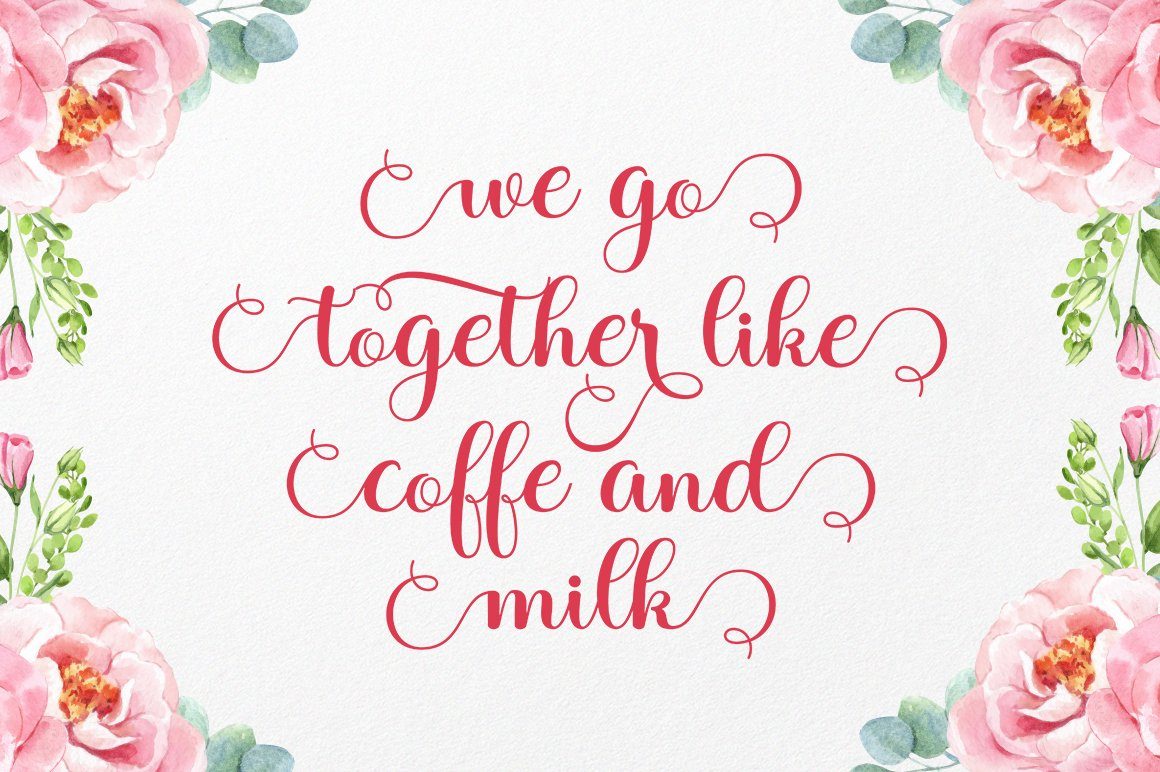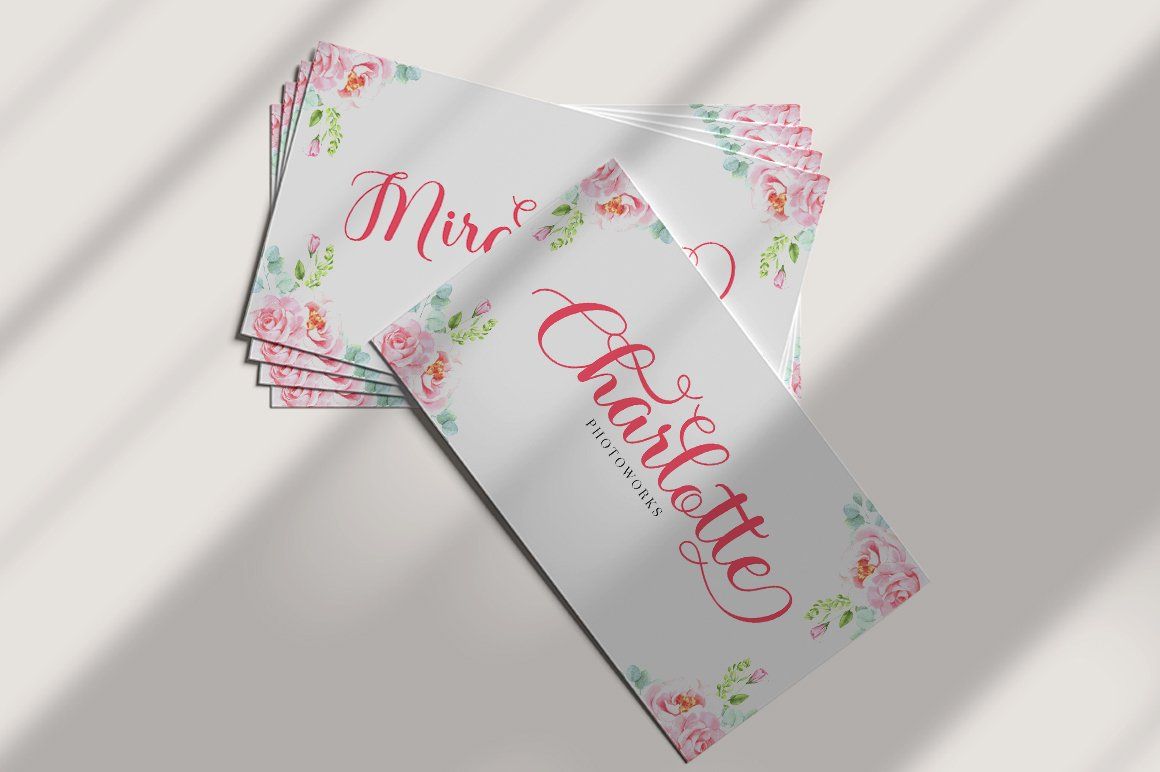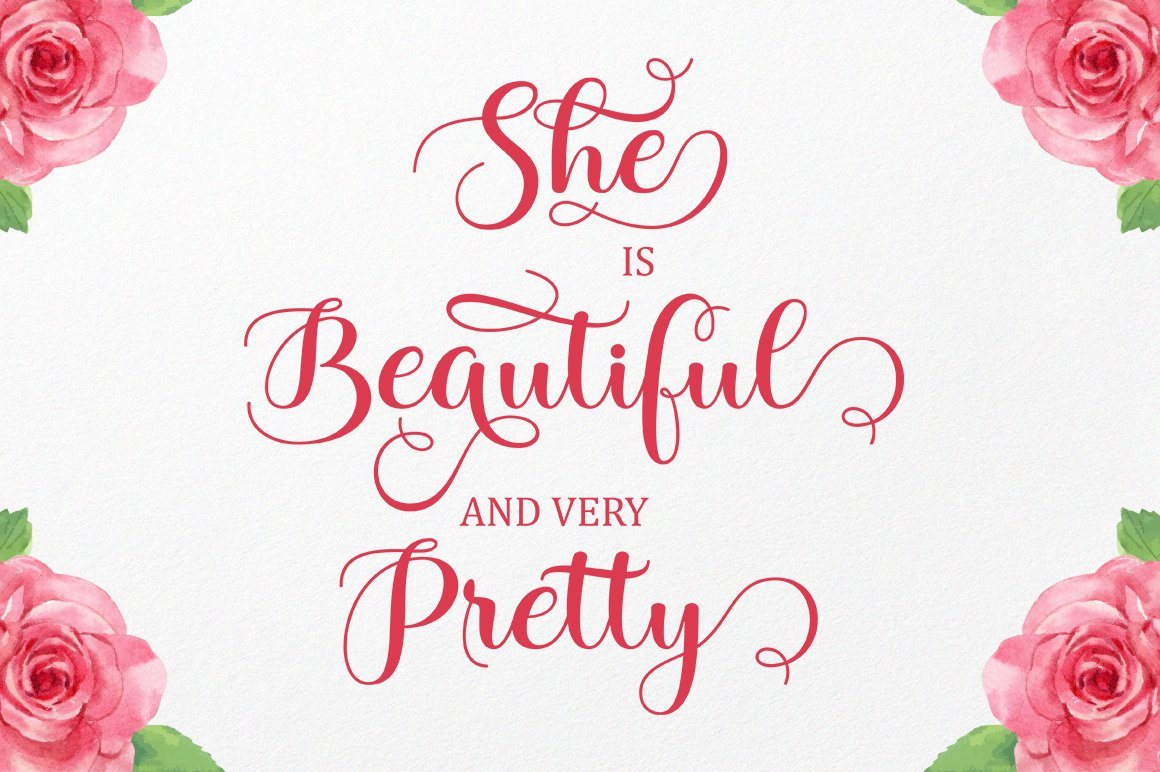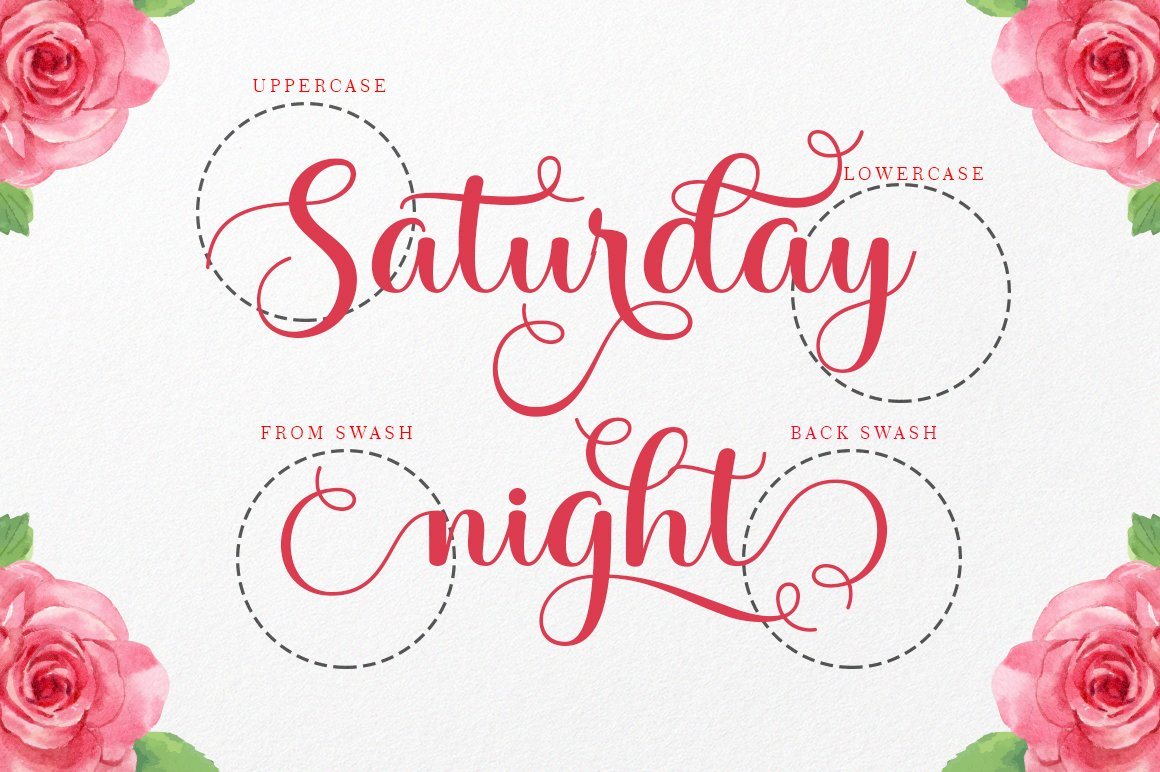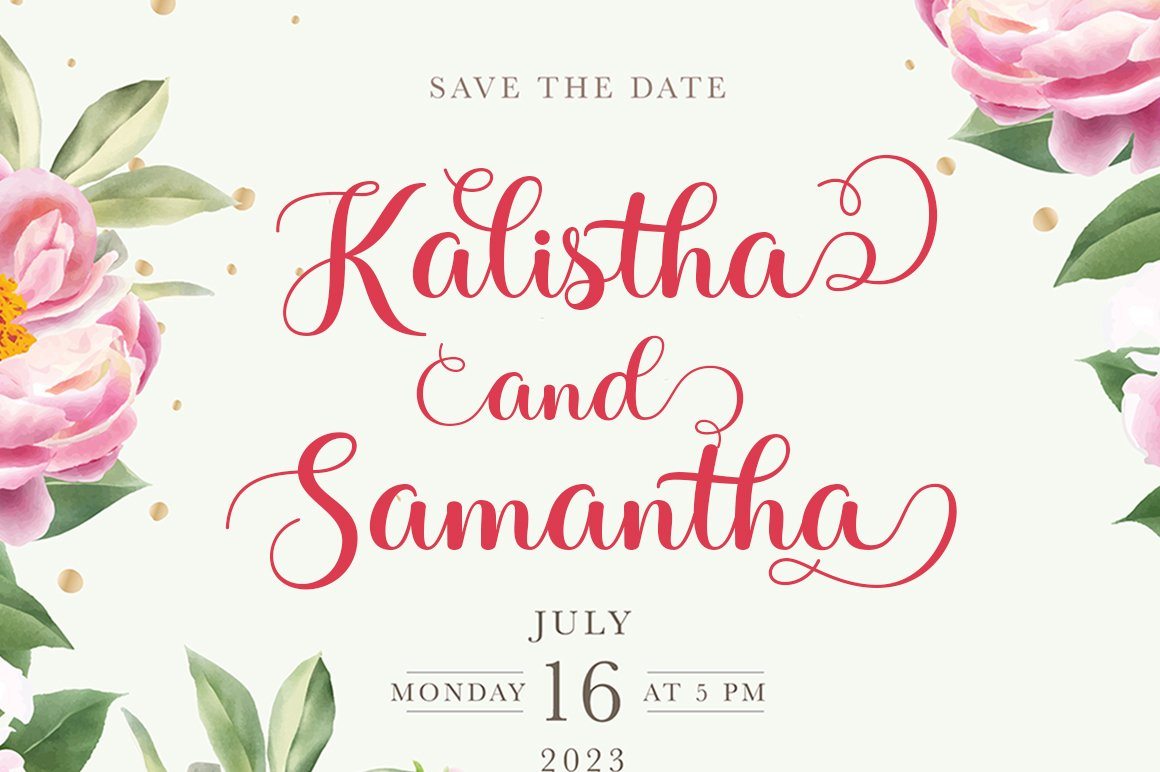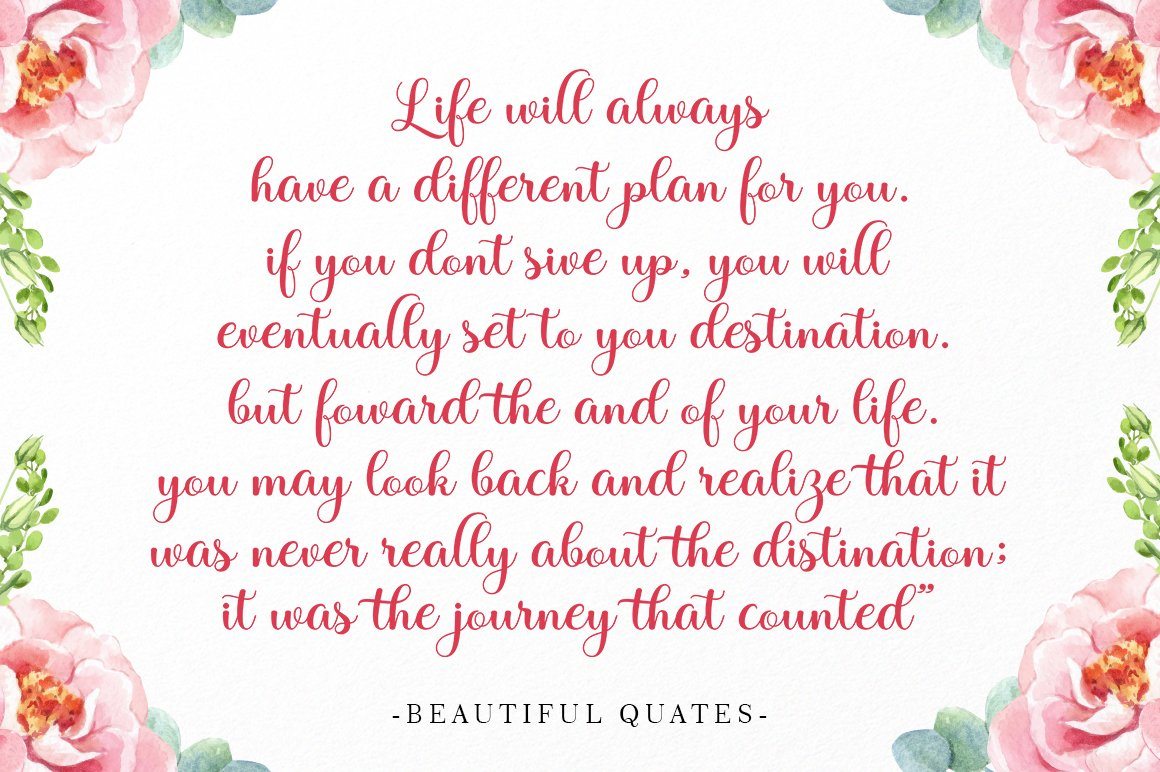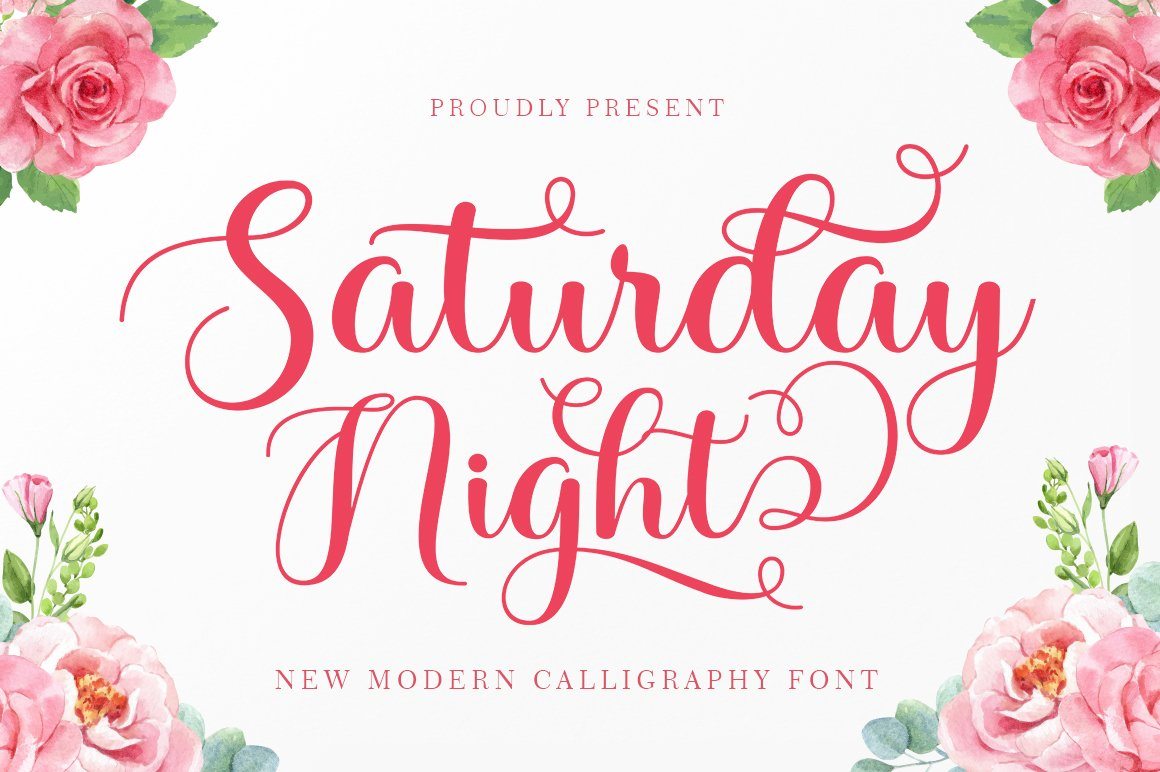
Saturday Night
About Saturday Night
Saturday Night Script, a new & modern script with handcrafted calligraphy styles, decorative characters and dancing baselines! So beautiful in invitations like greeting cards, branding materials, business cards, quotes, posters and more !! Saturday Night Script is equipped with 144 glyphs. Alternative characters are divided into several Open Type features such as Swash, Stylistic Sets, Stylistic Alternates, Contextual Alternates, and Ligature. The Open Type feature can be accessed using Open Type savvy programs such as Adobe Illustrator, Adobe InDesign, Adobe Photoshop Corel Draw X version, and Microsoft Word. And this Font has provided PUA unicode (custom coded font). so that all stunt characters can be easily fully accessed by a craftsman or designer.